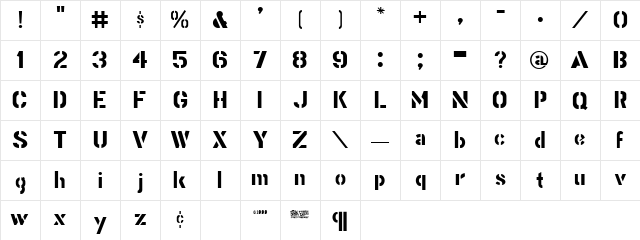
Stencil Gothic JL borrows the utilitarian aesthetic of stencil lettering, with its characteristic cutaways and no-frills construction lending an industrial edge.
Pro Tip: Use Stencil Gothic JL at large sizes on packaging, posters, or apparel where the stencil cutaways read clearly. Avoid small sizes where those gaps become visual noise.